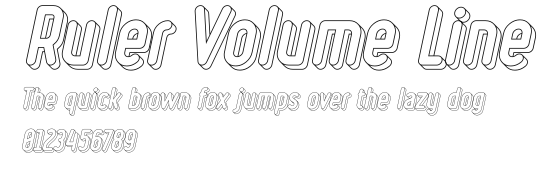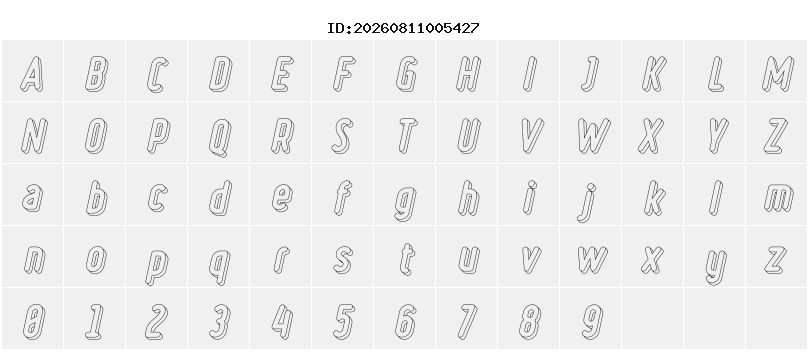
Ruler Volume Line Preview
• Font Name: Ruler Volume Line
• Full Font Name: Ruler Volume Line
• Designer: Levi Szekeres
• Description: Ruler Font
About Ruler Volume Line.ttf
Ruler Volume Line.ttf is a modern, elegant sans-serif font designed for ultimate readability and visual harmony. Perfect for branding, headlines, web design, and print materials.